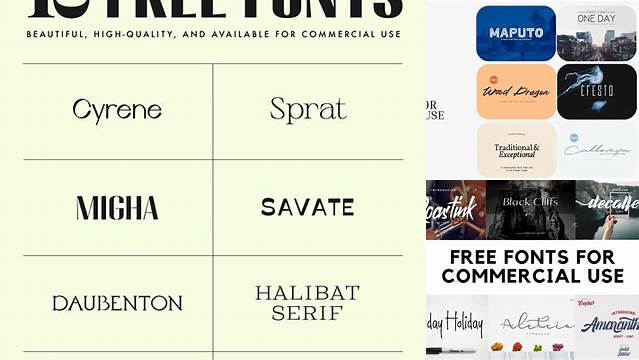
Free Fonts For Commercial Use: A Designer's Guide
Hey guys! Ever found yourself in a design pickle, needing that perfect font for your project but dreading the thought of shelling out big bucks? You're not alone! Finding fonts for commercial use that are actually free can feel like searching for a needle in a haystack. But guess what? There are tons of amazing options out there, you just need to know where to look. This guide is your ultimate roadmap to navigating the world of free commercial fonts, ensuring your projects look professional without breaking the bank. We'll dive into what "commercial use" really means, explore some fantastic resources, and even highlight some killer free fonts you can start using today. So, buckle up, font fanatics, let's get started!
Top Resources for Free Commercial Fonts
Alright, now that we've tackled the license talk, let's get to the good stuff: where to find those amazing free fonts for commercial use! The internet is overflowing with options, but not all sources are created equal. You want to stick to reputable websites that clearly state the licensing terms and offer high-quality fonts. Here are a few of my favorite go-to resources:
Google Fonts: This is like the holy grail of free fonts, guys. Google Fonts boasts a massive library of open-source fonts, all completely free for commercial use. The interface is super user-friendly, allowing you to filter by categories like serif, sans-serif, handwriting, and more. Plus, you can even preview how the fonts look with your own text. The best part? These fonts are designed to be web-friendly, so they'll look great on your website without slowing things down. Google Fonts stands out as an exceptional resource, not only for its vast collection but also for its commitment to quality and accessibility. Each font in the Google Fonts library undergoes rigorous testing to ensure optimal performance across various devices and browsers. This attention to detail ensures that designers can confidently incorporate these fonts into their projects, knowing they will render beautifully across different platforms. Moreover, the user-friendly interface of Google Fonts makes it incredibly easy to browse, filter, and preview fonts. Designers can quickly narrow down their options based on specific criteria such as font style, weight, and language support. The ability to preview fonts with custom text further enhances the selection process, allowing designers to visualize how a particular font will look in their designs before committing to it. Beyond its technical merits, Google Fonts also fosters a sense of community and collaboration among designers. The open-source nature of the fonts encourages contribution and improvement, ensuring that the library remains vibrant and up-to-date. This collaborative spirit aligns perfectly with the ethos of the design world, where sharing and learning are essential for growth and innovation. For designers seeking a reliable source of high-quality, free commercial fonts, Google Fonts is undoubtedly a top choice. Its extensive library, user-friendly interface, and commitment to open-source principles make it an invaluable resource for any creative project. So, whether you're designing a website, crafting a logo, or creating marketing materials, Google Fonts provides the perfect typographic foundation for your vision. With its unwavering dedication to quality and accessibility, Google Fonts empowers designers to express their creativity without limitations, making it a true gem in the world of typography.
Font Squirrel: Think of Font Squirrel as your curated collection of the best free fonts online. They hand-pick each font, ensuring it's high-quality and legally free for commercial use. They even offer a handy Font Identifier tool, which helps you find a font if you have an image of it. Talk about convenient! Font Squirrel has carved out a unique niche in the world of free commercial fonts by prioritizing quality and legal clarity. Unlike some other font repositories that may host fonts with uncertain licensing terms, Font Squirrel meticulously vets each font to ensure it is truly free for commercial use. This dedication to legal compliance provides designers with peace of mind, knowing they can confidently use fonts from Font Squirrel in their projects without the risk of copyright infringement. The curated nature of Font Squirrel's collection also sets it apart. Rather than simply amassing a vast quantity of fonts, Font Squirrel focuses on selecting the best options available, ensuring that users have access to a range of high-quality typefaces. This curated approach saves designers time and effort by eliminating the need to sift through countless subpar fonts. In addition to its commitment to quality and legal compliance, Font Squirrel offers a range of helpful tools and resources for designers. The Font Identifier tool, for instance, allows users to upload an image of a font and receive suggestions for similar fonts, making it an invaluable resource for identifying and sourcing typefaces. Font Squirrel's user-friendly website and intuitive search functionality further enhance the user experience. Designers can easily browse fonts by category, style, or foundry, making it simple to find the perfect typeface for their project. The website also provides detailed information about each font, including licensing terms, character sets, and usage recommendations. By combining a curated collection of high-quality fonts with a commitment to legal clarity and user-friendly resources, Font Squirrel has established itself as a premier destination for designers seeking free commercial fonts. Whether you're a seasoned professional or a budding enthusiast, Font Squirrel offers a wealth of typographic inspiration and resources to fuel your creative endeavors. So, if you're on the hunt for free fonts that are both beautiful and legally sound, Font Squirrel is definitely a resource worth exploring.
DaFont: DaFont is a massive font archive, but you need to be extra careful here. While they offer many free fonts, the licenses vary. Some are free for personal use only, while others are free for commercial use. Always double-check the license before using a font from DaFont, guys! Despite the need for careful license verification, DaFont remains a popular resource for designers seeking a diverse range of fonts. Its vast collection encompasses a wide array of styles, from classic serifs and elegant scripts to modern sans-serifs and quirky display fonts. This extensive selection makes DaFont a valuable source of inspiration for designers working on a variety of projects, from branding and advertising to web design and print materials. The sheer volume of fonts available on DaFont can be both a blessing and a curse. While the abundance of options is undoubtedly appealing, it also means that designers need to exercise caution when selecting fonts for commercial use. As the platform hosts fonts from a variety of sources, including independent designers and foundries, licensing terms can vary significantly. Some fonts may be offered under open-source licenses, allowing for free commercial use, while others may be restricted to personal use only. Therefore, it's crucial to carefully review the license information provided for each font before incorporating it into any commercial project. DaFont's user interface is relatively straightforward, allowing designers to easily browse and search for fonts based on style, category, or designer. Each font listing includes details about the font's license, as well as a preview of the typeface in action. This information helps designers make informed decisions about whether a particular font is suitable for their needs and whether they are legally permitted to use it for commercial purposes. Despite the need for careful license verification, DaFont continues to be a valuable resource for designers seeking free fonts. Its extensive collection, diverse range of styles, and user-friendly interface make it a popular destination for typographic inspiration. However, it's essential to approach DaFont with a discerning eye, always taking the time to review the license information before using any font in a commercial project. By exercising due diligence, designers can safely explore the vast offerings of DaFont and discover unique and expressive typefaces to enhance their creative endeavors.
Creative Market (Free Goods): Creative Market is a marketplace for design assets, and they offer a rotating selection of free goods every week, including fonts! This is a great way to discover hidden gems and try out new fonts without spending a dime. Just like with DaFont, always double-check the license to make sure it covers commercial use. Creative Market has emerged as a vibrant hub for designers seeking high-quality assets, and its weekly free goods offerings have become a much-anticipated event. These freebies often include a selection of fonts, graphics, templates, and other design resources, providing designers with an opportunity to expand their toolkit without breaking the bank. The fonts offered as free goods on Creative Market are typically created by independent designers and foundries, showcasing a diverse range of styles and aesthetics. From elegant script fonts to bold display faces, there's often something for everyone in the weekly freebies. This variety allows designers to experiment with different typographic approaches and discover new fonts that they might not have otherwise encountered. While the free goods on Creative Market are undoubtedly appealing, it's essential to exercise the same caution as with other font repositories when it comes to licensing. Each font offered as a freebie comes with its own set of licensing terms, which may vary depending on the designer or foundry. Some fonts may be offered under commercial licenses, allowing for use in a wide range of projects, while others may be restricted to personal use only. Therefore, it's crucial to carefully review the license information provided for each font before incorporating it into any commercial project. Creative Market typically provides clear and concise license information for its free goods, making it easier for designers to understand the terms of use. However, it's always a good idea to double-check the license agreement to ensure that the font can be used in the intended manner. In addition to its free goods offerings, Creative Market also boasts a vast marketplace of premium design assets, including fonts, graphics, templates, and more. This makes it a one-stop shop for designers looking to find the perfect resources for their projects. Whether you're seeking a free font to experiment with or a premium typeface to elevate your designs, Creative Market offers a wealth of options to explore. By taking advantage of the weekly free goods and browsing the extensive marketplace, designers can discover a world of typographic possibilities and enhance their creative endeavors.
Must-Have Free Fonts for Commercial Projects
Okay, now for the fun part! Let's talk about some specific free fonts that are perfect for your commercial projects. These fonts are not only free for commercial use, but they're also stylish, versatile, and will make your designs shine. Remember, this is just a small sampling – there are tons more out there waiting to be discovered!
Oswald: Oswald is a classic sans-serif font that's perfect for headlines and titles. Its condensed design gives it a modern and professional look, making it a great choice for websites, logos, and marketing materials. Oswald, a staple in the world of web typography, exudes a contemporary and professional aura with its clean, sans-serif design. Its condensed form factor lends itself exceptionally well to headlines and titles, where its strong presence commands attention without overwhelming the overall design. This typeface has become a go-to choice for designers seeking a balance between modernity and readability. Its versatility extends across various platforms, making it equally suitable for websites, logos, and marketing materials. Oswald's clean lines and geometric shapes contribute to its timeless appeal, ensuring that it remains a relevant choice for years to come. One of the key strengths of Oswald lies in its ability to maintain legibility even at smaller sizes. This makes it an excellent option for body text, where clarity is paramount. The carefully crafted letterforms and generous spacing contribute to a comfortable reading experience, allowing users to engage with content effortlessly. In addition to its aesthetic qualities, Oswald is also praised for its technical performance. As a web-optimized font, it renders smoothly across different browsers and devices, ensuring a consistent visual experience for all users. This is particularly crucial in today's digital landscape, where websites and applications are accessed on a wide range of devices with varying screen sizes and resolutions. Oswald's popularity among designers stems from its ability to seamlessly integrate into diverse design projects. Whether it's used as the primary typeface for a brand identity or as a secondary font to complement a more decorative display face, Oswald adapts effortlessly to different contexts. Its neutral and unassuming nature allows it to pair well with a wide range of design elements, making it a versatile addition to any typographic toolkit. The enduring appeal of Oswald can be attributed to its ability to strike a harmonious balance between form and function. It embodies the principles of modern design, prioritizing clarity, simplicity, and usability. This makes it a reliable choice for designers seeking a typeface that not only looks good but also performs well in a variety of applications. With its timeless aesthetic and technical excellence, Oswald continues to be a favored choice for designers around the globe, solidifying its position as a cornerstone of contemporary typography.
Roboto: Roboto is another fantastic sans-serif option, known for its clean and modern aesthetic. It comes in a variety of weights, giving you lots of flexibility in your designs. Plus, it's Google's system font for Android, so you know it's designed for readability. Roboto, a quintessential sans-serif typeface, has garnered widespread acclaim for its sleek and contemporary design. Its clean lines and geometric forms imbue it with a sense of modernity, making it a popular choice for a diverse range of applications. The versatility of Roboto is further enhanced by its availability in a multitude of weights, affording designers the flexibility to fine-tune the visual hierarchy and emphasis within their designs. From the delicate thin weight to the commanding black weight, Roboto offers a comprehensive typographic palette to suit various creative needs. One of the key factors contributing to Roboto's popularity is its impeccable readability. Designed with clarity in mind, the letterforms are meticulously crafted to ensure optimal legibility across different sizes and resolutions. This makes it an excellent choice for both body text and headlines, where clarity is paramount. The open counters and generous spacing between letters contribute to a comfortable reading experience, allowing users to engage with content effortlessly. Beyond its aesthetic and functional qualities, Roboto also holds a prominent position in the tech world. As the system font for Android, Google's ubiquitous mobile operating system, Roboto has become a familiar sight to billions of users worldwide. This widespread adoption has further solidified Roboto's status as a contemporary classic, ensuring its continued relevance in the ever-evolving landscape of digital design. Roboto's versatility extends beyond the digital realm. Its clean and unassuming design makes it equally well-suited for print applications, such as brochures, posters, and corporate stationery. Its neutrality allows it to seamlessly integrate into diverse design projects, from minimalist layouts to bold and expressive compositions. The enduring appeal of Roboto can be attributed to its ability to strike a harmonious balance between form and function. It embodies the principles of modern design, prioritizing clarity, simplicity, and usability. This makes it a reliable choice for designers seeking a typeface that not only looks good but also performs exceptionally well in a variety of applications. With its clean aesthetic, impeccable readability, and widespread adoption, Roboto has cemented its place as a cornerstone of contemporary typography. Its versatility and enduring appeal make it an invaluable asset for designers seeking a typeface that embodies both style and substance.
Montserrat: If you're looking for a font with a bit more personality, Montserrat is a great choice. This geometric sans-serif has a stylish and sophisticated feel, making it perfect for branding and design projects. Montserrat, a geometric sans-serif typeface, exudes a distinctive personality that sets it apart from its more neutral counterparts. Its stylish and sophisticated aesthetic makes it a favored choice for branding projects and design initiatives where a touch of character is desired. The geometric forms and meticulously crafted letterforms of Montserrat lend it a sense of modernity and elegance, making it a versatile option for a wide range of applications. One of the defining characteristics of Montserrat is its pronounced geometric structure. The letterforms are based on simple shapes, such as circles, squares, and triangles, resulting in a clean and contemporary aesthetic. This geometric foundation gives Montserrat a sense of stability and balance, making it a reliable choice for headlines, logos, and other prominent design elements. Despite its geometric nature, Montserrat also possesses a subtle warmth and personality. The letterforms are carefully crafted to ensure a harmonious balance between form and function, resulting in a typeface that is both visually appealing and highly readable. This combination of style and substance makes Montserrat an excellent choice for a variety of design projects, from minimalist layouts to more expressive compositions. Montserrat's versatility extends across different media and applications. Its clean and legible design makes it well-suited for both print and digital environments. Whether it's used on a website, a brochure, or a business card, Montserrat maintains its visual integrity and ensures a consistent user experience. In addition to its aesthetic qualities, Montserrat also boasts excellent technical performance. As a web-optimized font, it renders smoothly across different browsers and devices, ensuring a consistent visual appearance for all users. This is particularly important for websites and other digital applications, where cross-platform compatibility is essential. The enduring appeal of Montserrat can be attributed to its ability to strike a balance between modernity and personality. It embodies the principles of contemporary design while also retaining a sense of warmth and character. This makes it a versatile choice for designers seeking a typeface that is both stylish and functional. With its geometric elegance and subtle personality, Montserrat continues to be a favored choice for branding projects and design initiatives around the globe. Its versatility and enduring appeal make it an invaluable asset for designers seeking a typeface that elevates their creative endeavors.
Finding fonts for commercial use free doesn't have to be a daunting task. With the right resources and a good understanding of licensing, you can build a killer font library without spending a fortune. Remember to always double-check the license before using a font, and have fun experimenting with different typefaces to find the perfect ones for your projects. Happy designing, guys!